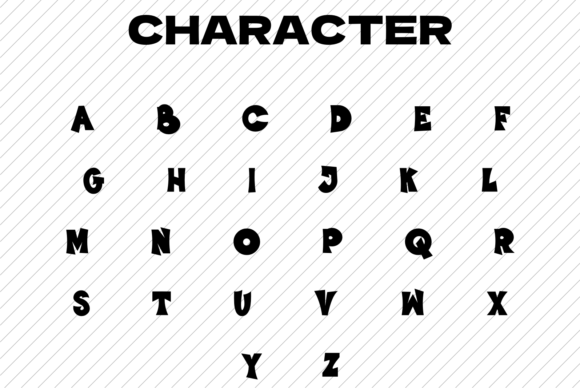
Introduction to Himawari Font Font
Fonts play a crucial role in design, and the Himawari Font font is a typeface that brings both character and versatility to any project. Whether you’re working on a branding project, a website, or a print design, the Himawari Font font offers a unique style that can elevate your work.
Himawari is a thick-lettered and cool display font.
Simple but with a strong visual effect, this font will instantly make your creations more appealing than any others .
Key Features of Himawari Font Font
Why Choose Himawari Font Font?
The Himawari Font font is more than just a typeface – it’s a design tool that helps you communicate your message with style and clarity. Its unique character set and versatile design make it suitable for a wide range of applications, from elegant invitations to bold headlines.
With its carefully crafted letterforms and balanced proportions, the Himawari Font font ensures readability and visual appeal across all mediums.
What makes Himawari Font font special?
The Himawari Font font stands out with its unique design, exceptional readability, and versatility across various design applications.